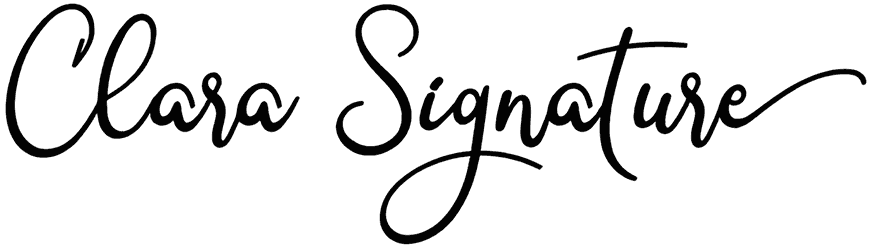
Clara Signature Font
Some fonts feel like handwriting that instantly belongs to the moment, and Clara Signature does exactly that. Its fluid strokes, natural rhythm, and personal character make your type feel more like a handwritten note and less like a rigid design decision. This makes it especially powerful for projects where emotion and personality matter: wedding invitations, branding for boutiques, lifestyle blogs, handcrafted product labels, and heartfelt social media graphics all gain warmth when Clara Signature is used.
In this signature font, letterforms flow together gracefully, giving your words a human touch while still remaining readable and stylish. Sometimes the best typography doesn’t just communicate words; it conveys feeling.